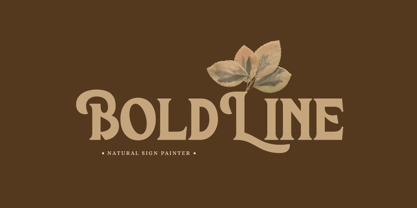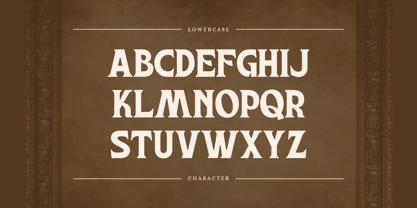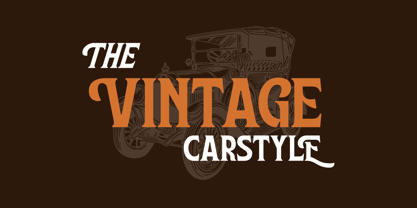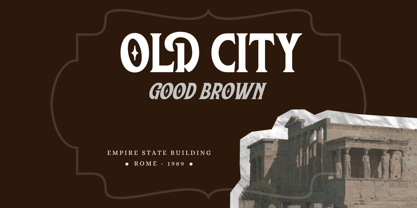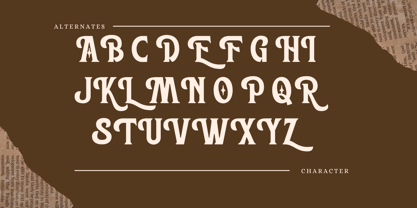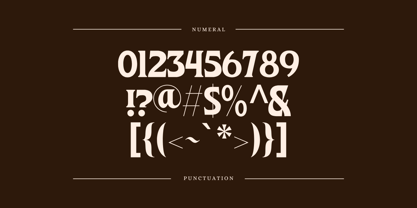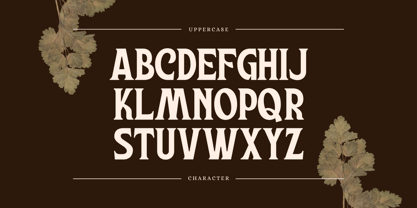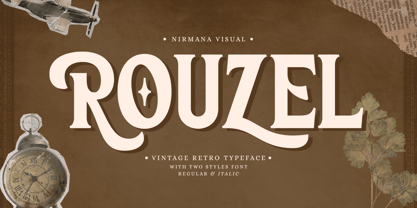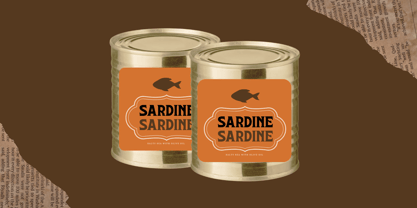
Rouzel Vintage
by Nirmana Visual
The Rouzel Vintage Font Family was designed by Sigit Dwipa and published by Nirmana Visual. Rouzel Vintage contains 2 styles and family package options. More about this family
Rouzel Vintage Font is a charming serif display typeface that captures a timeless, nostalgic feel. Featuring both Regular and Italic styles, Rouzel blends classic elegance with bold personality, making it perfect for logos, posters, branding, and editorial designs. Its refined serifs and subtle vintage flair add character and sophistication to any project, offering a beautiful balance between tradition and creativity.
Designers: Sigit Dwipa
Foundry: Nirmana Visual